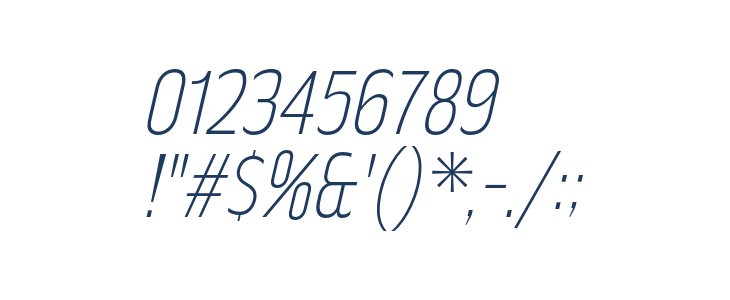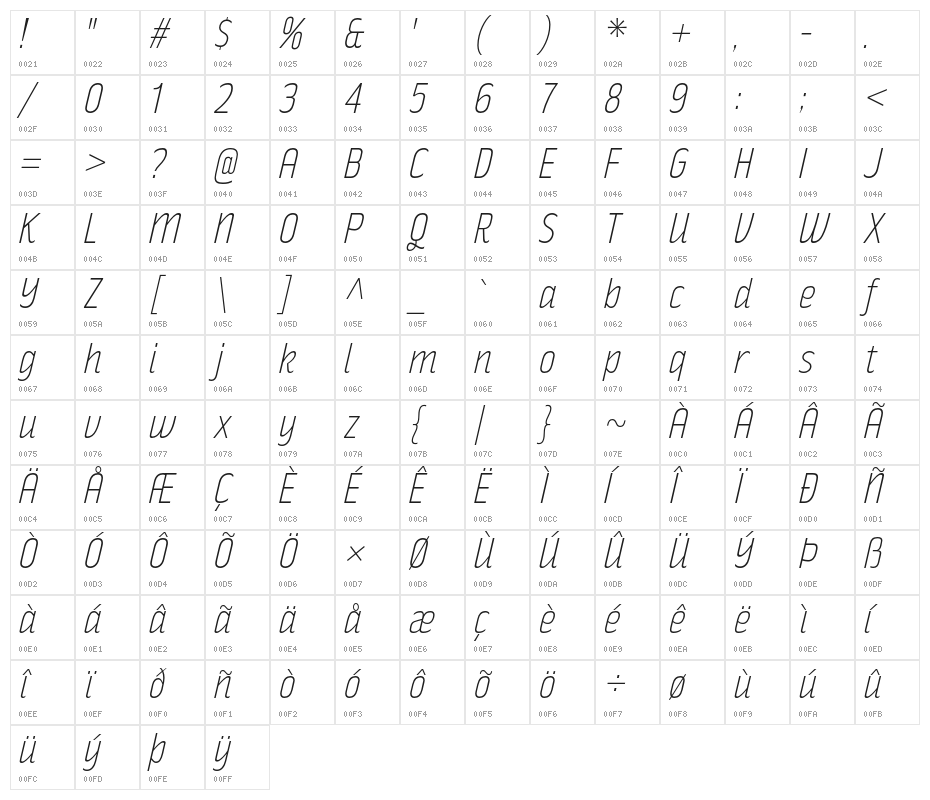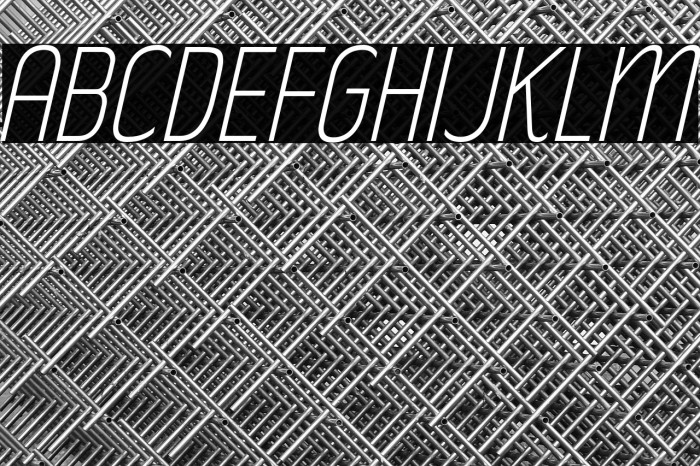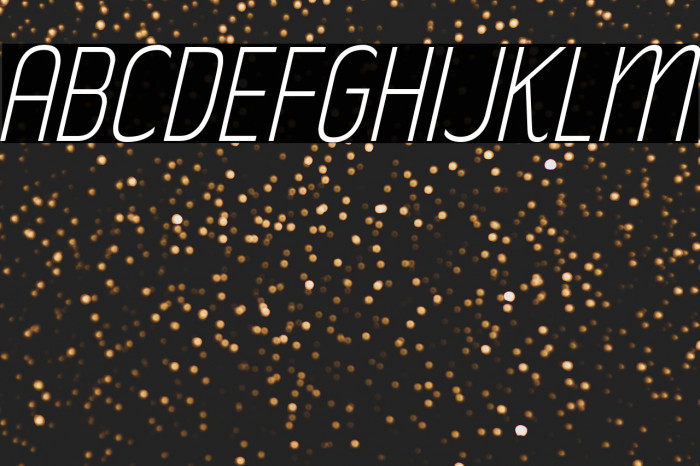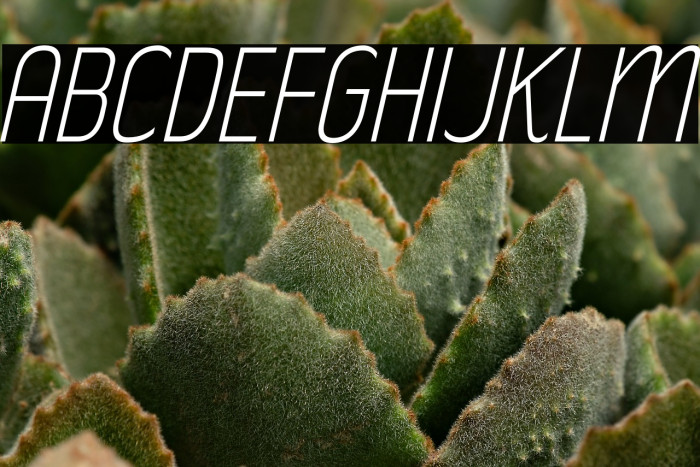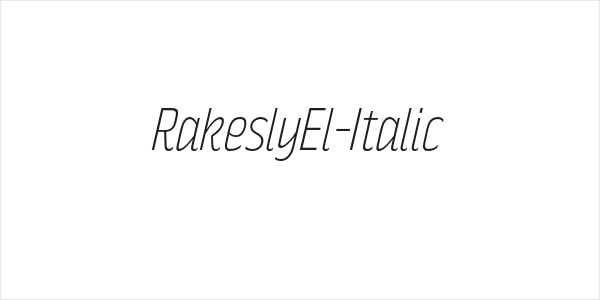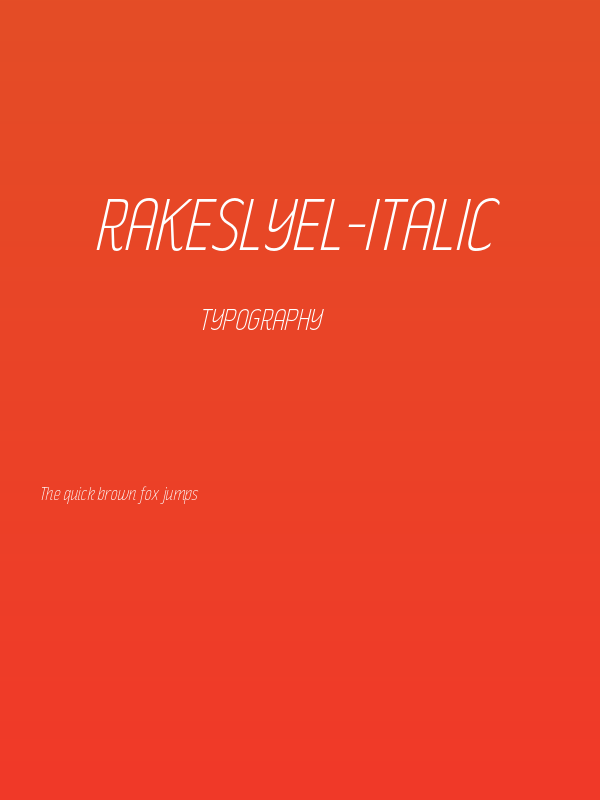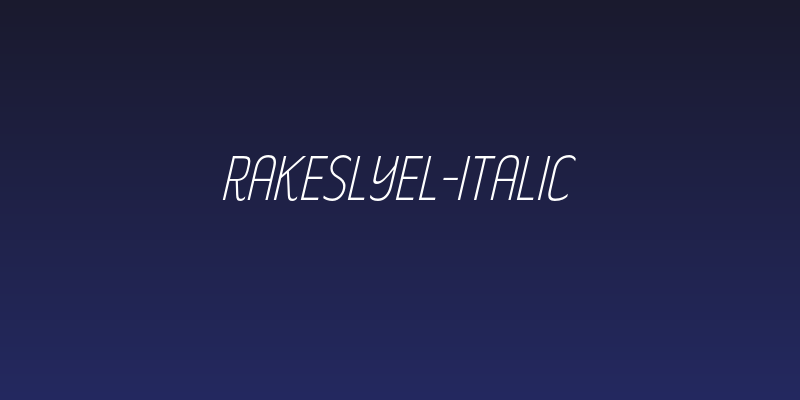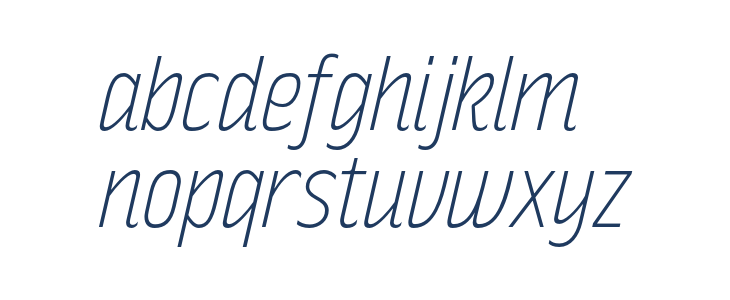
RakeslyEl-Italic Font
RakeslyEl-Italic Description
This font exhibits a sleek and modern design with a distinct italic slant, giving it a dynamic and fluid appearance. The characters are elegantly elongated, with smooth curves and a consistent stroke width that conveys a sense of movement and sophistication. The uppercase letters maintain a uniform height, while the lowercase letters are slightly more varied, adding a touch of personality. The numerals are clear and legible, matching the overall style of the alphabet. Special characters are well-integrated, maintaining the font's cohesive aesthetic. This font is ideal for projects that require a contemporary and stylish touch.
| Proposed Projects | Ideal for fashion magazines, modern branding, dynamic advertisements, and stylish web design. |